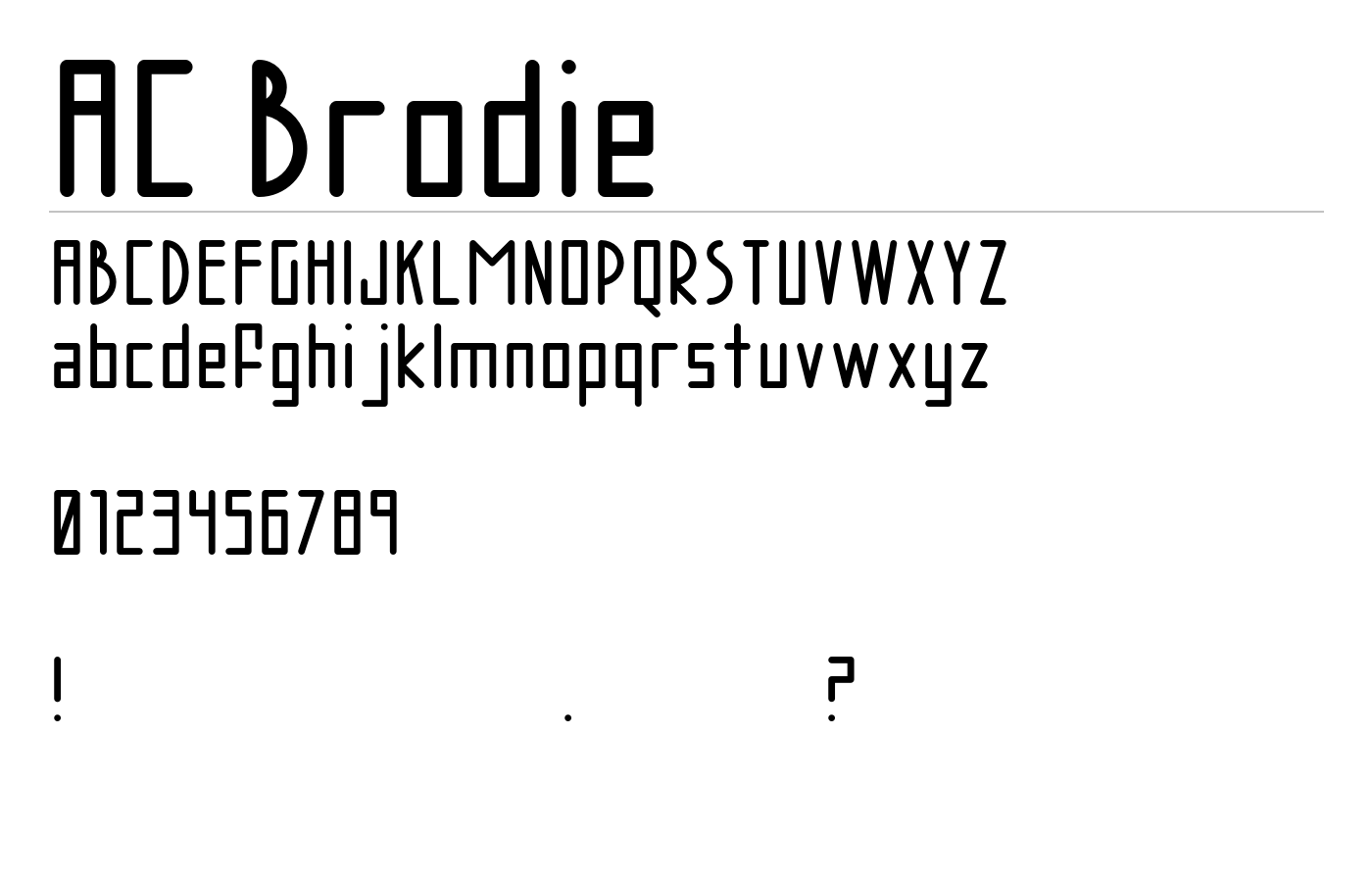
AC Brodie is a narrow, modern sans serif font with a clean and geometric feel. Its tall, condensed letterforms with consistent stroke weight give it a sleek, tech-inspired personality, making it great for signage, headlines, and branding where space is limited but clarity is key. This font’s unique shapes add a distinctive, contemporary edge, perfect for projects looking for a minimalist yet memorable look.
AC Brodie Font
About AC Brodie Font
| Designer | Adrian Candela |